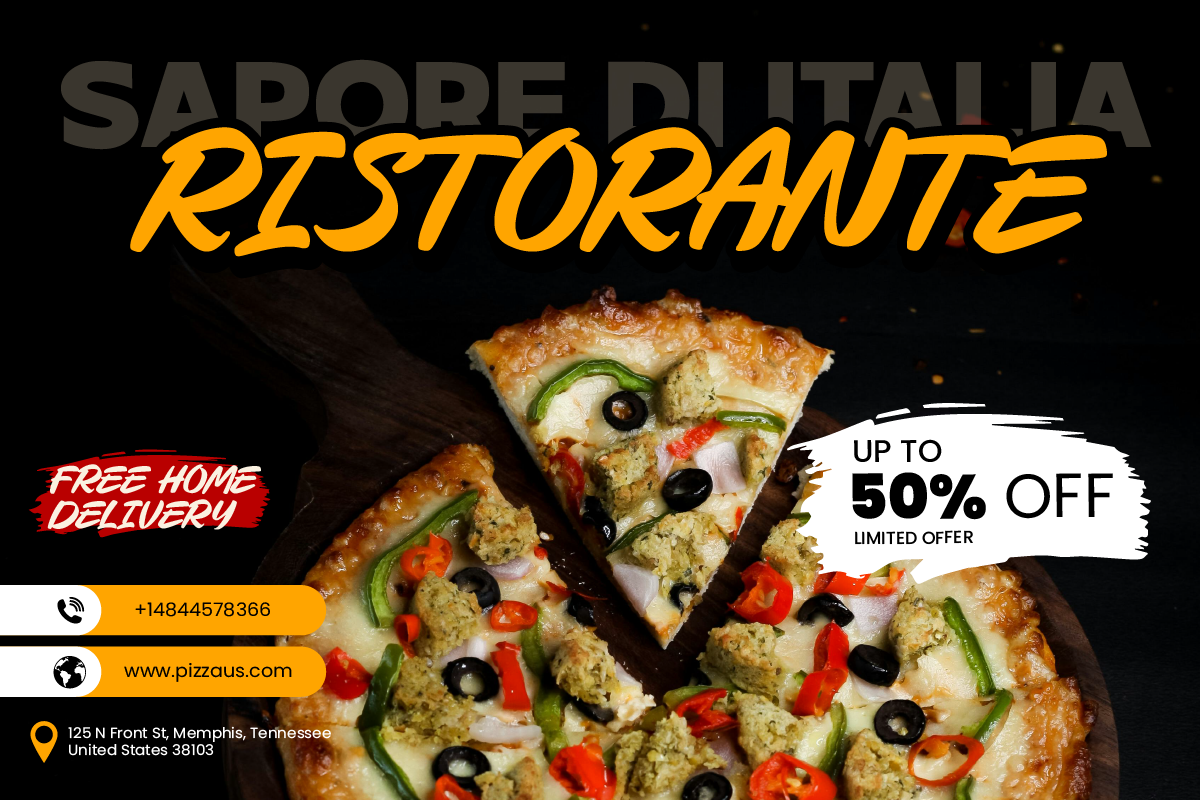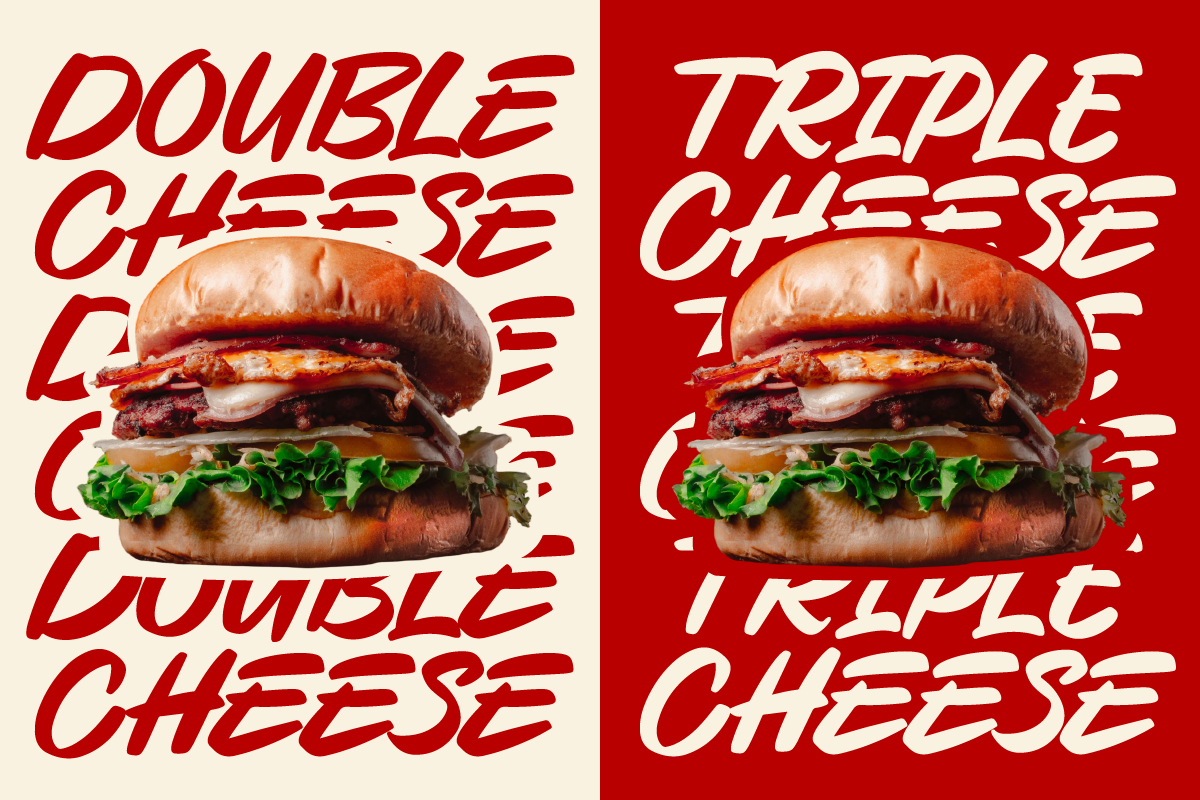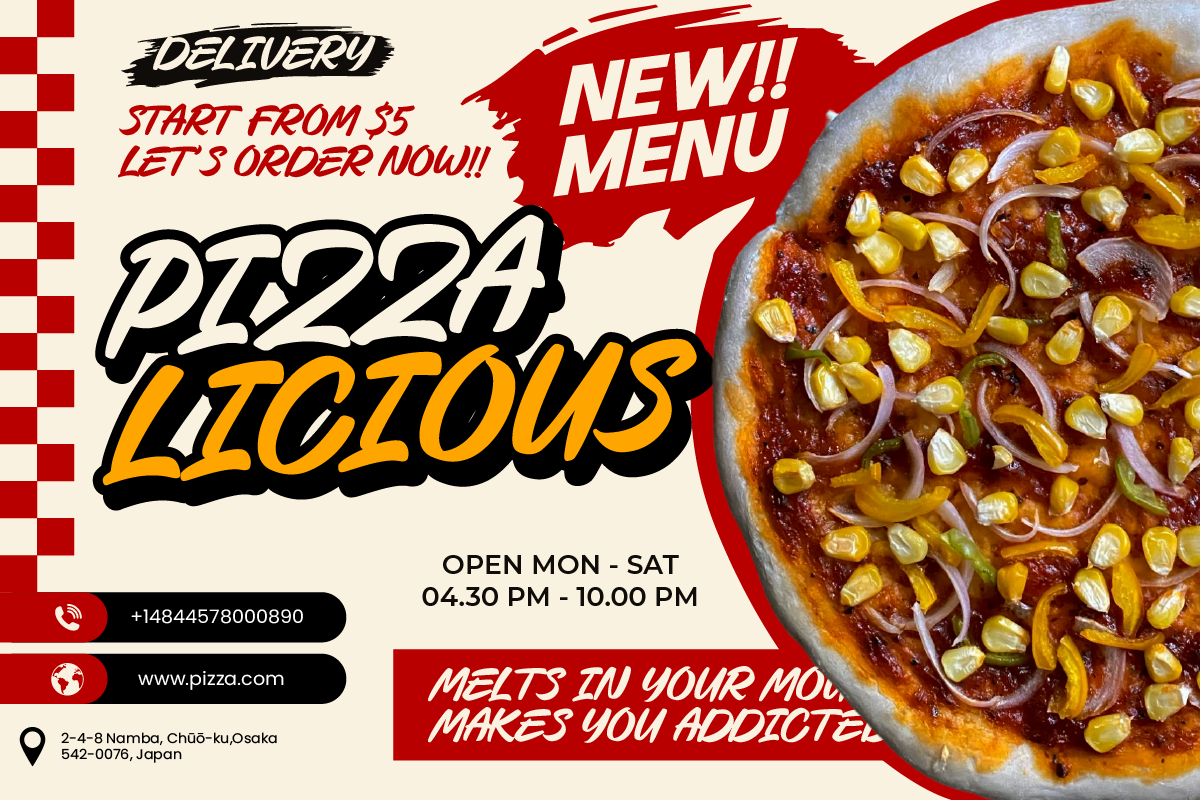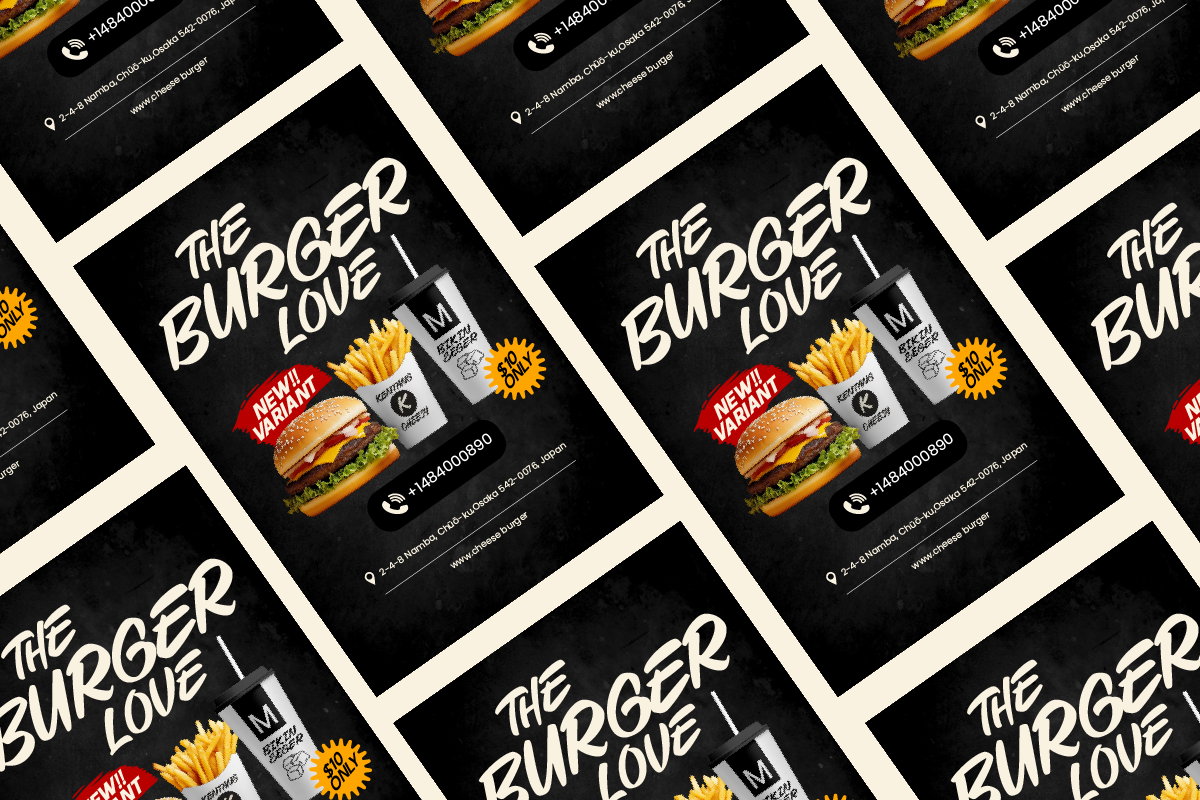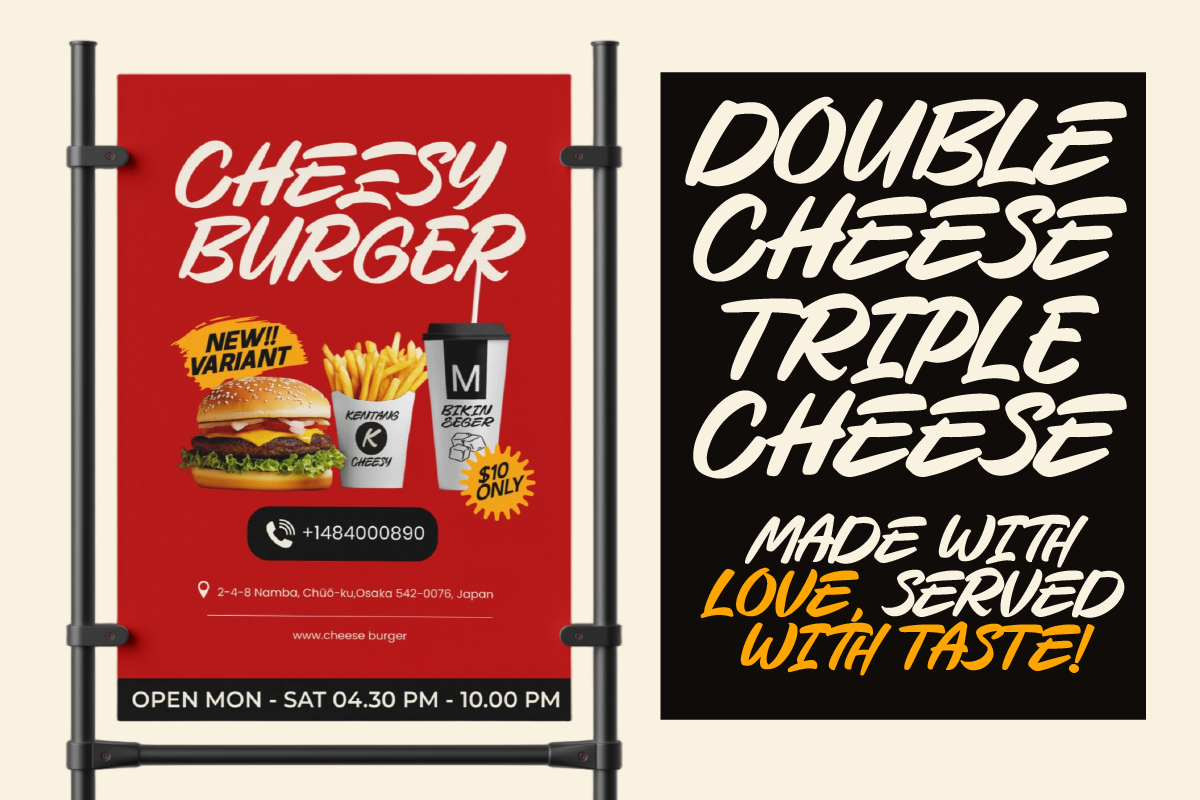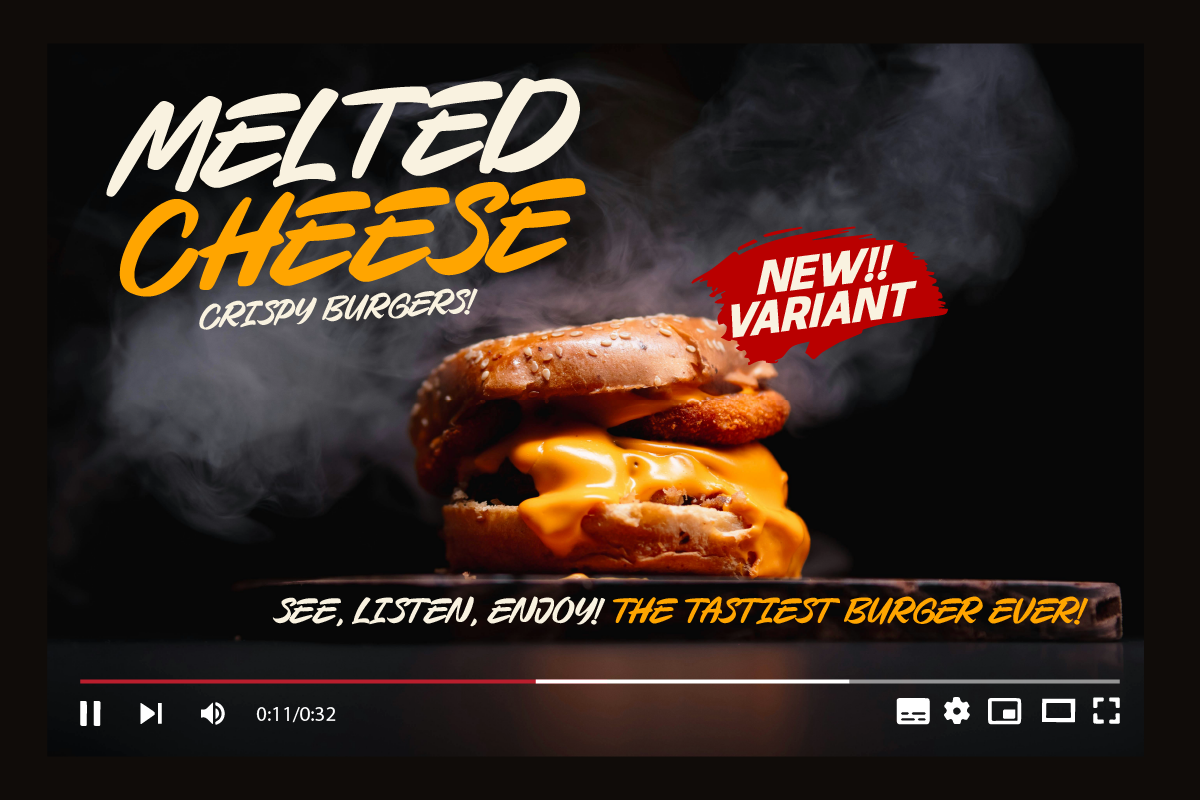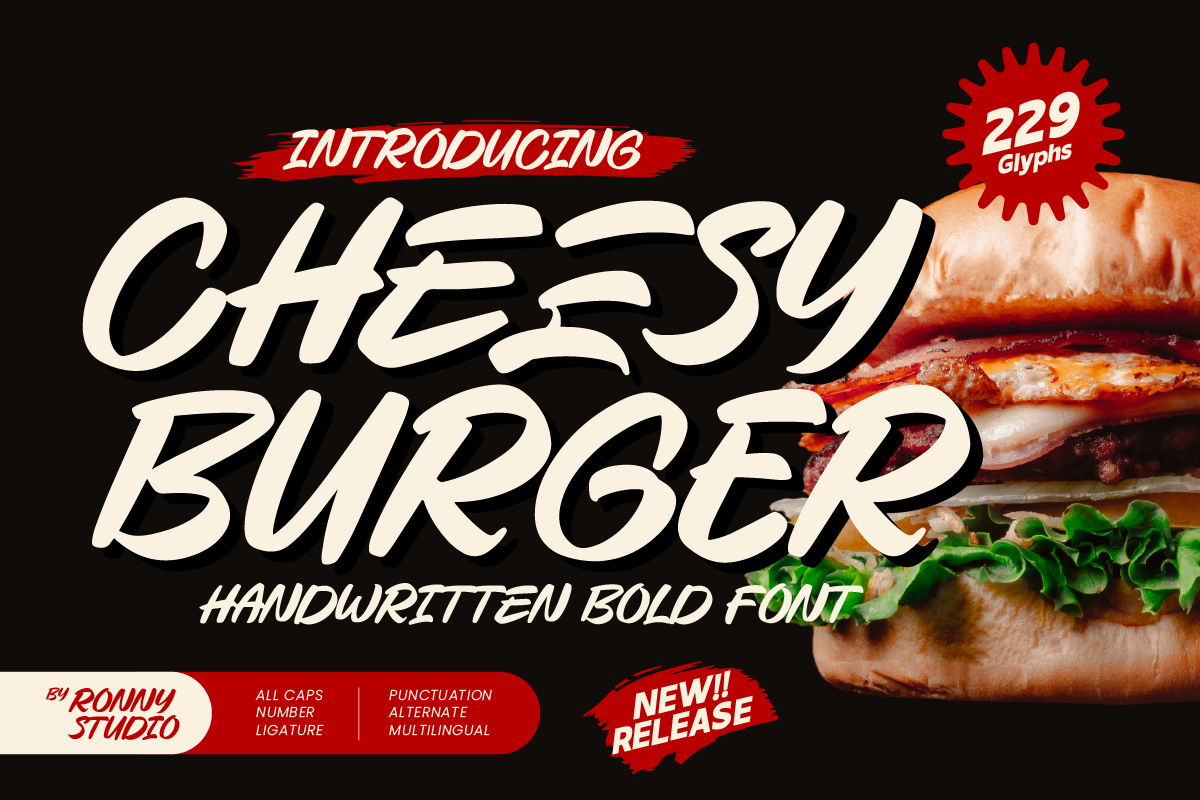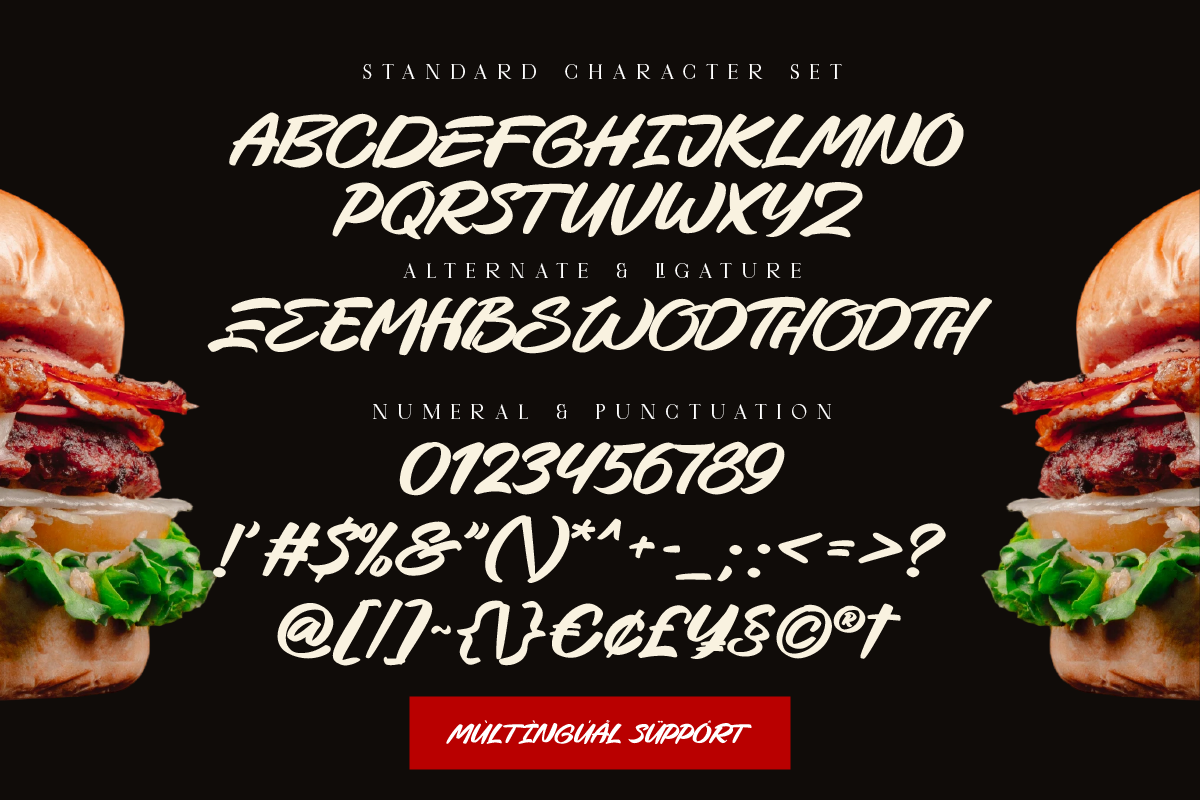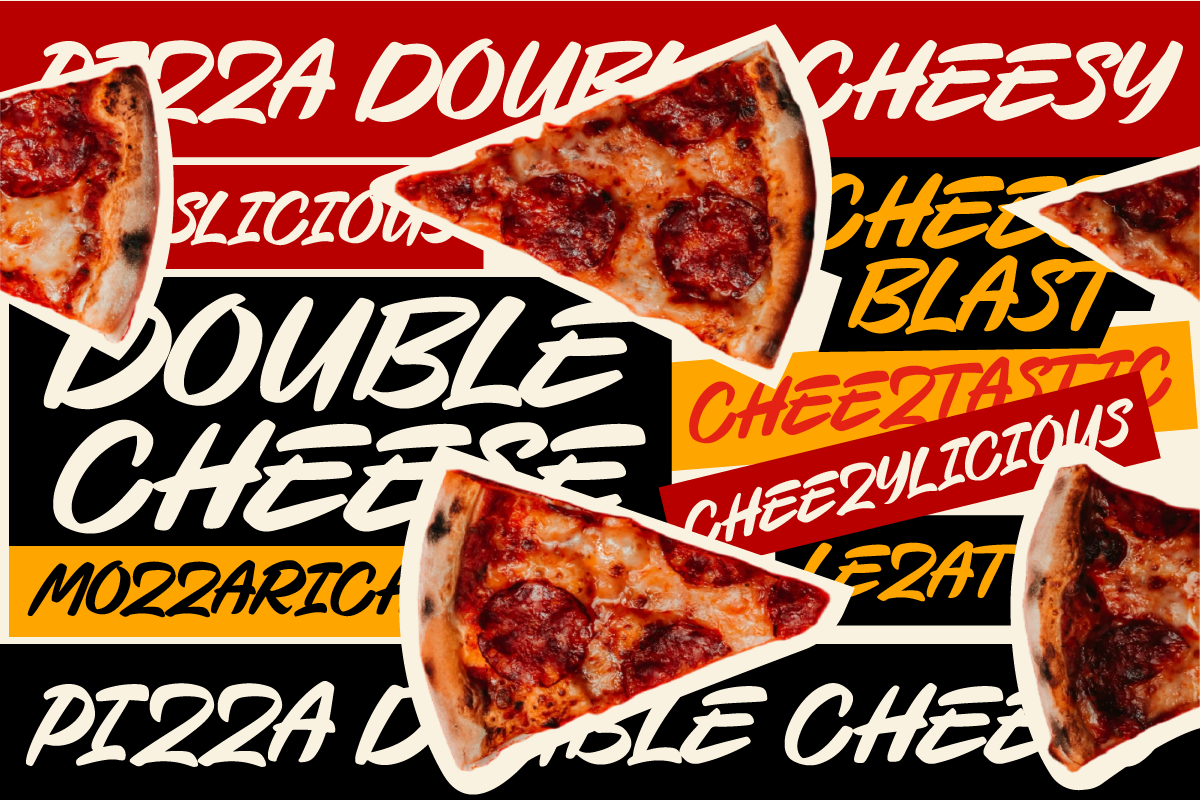
Cheesy Burger Handwritten Bold Font
🍔 Cheesy Burger is a bold, playful, and energetic handwritten font inspired by the fun, juicy, and delicious vibe of food branding and casual typography. Designed for projects that need a fresh, friendly, and bold touch, this font is perfect for restaurant logos, food packaging, menus, advertising, posters, and social media branding.
🔥 Why Choose Cheesy Burger?
✔ Handwritten Brush Style – A smooth yet bold font with a casual feel, perfect for eye-catching headlines.
✔ Perfect for Food & Lifestyle Branding – Designed for burger shops, cafés, fast food branding, and promotional ads.
🍟 Best Suited For:
✅ Food & Beverage Logos
✅ Restaurant Menus & Packaging
✅ Social Media Promotions (Instagram, Facebook, YouTube)
✅ Fun Advertising & Branding
✅ Playful Merchandise & T-Shirts
✔ All Caps & Numbers
✔ Special Ligatures & Alternates